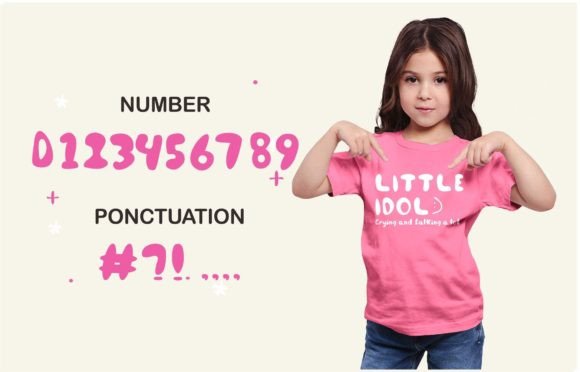
Honey Sweety Font
About Honey Sweety Font
Honey Sweety is a font that radiates cuteness and charm, designed with a whimsical and slightly quirky touch. Its handwritten style adds a playful and friendly vibe to your designs, making them appear delightful and approachable. This font has the ability to infuse a sense of warmth and sweetness into your projects, brightening them up with its unique character.
The charm of Honey Sweety lies in its playful and whimsical nature. The handwritten strokes give it an authentic and personalized feel, as if the text was lovingly crafted by hand. This makes it perfect for a variety of creative applications, such as greeting cards, invitations, children’s books, posters, social media graphics, and more. Its cute and charming appearance adds a touch of innocence and joy to your designs, making them visually appealing and heartwarming.
One of the standout features of Honey Sweety is its ability to evoke positive emotions. Its playful quirkiness makes it a favorite among those looking to create designs that are not only visually appealing but also emotionally engaging. By adding Honey Sweety confidently to your projects, you can create a connection with your audience, eliciting smiles and a sense of delight.
Embracing Honey Sweety in your designs allows you to tap into its adorable and cheerful essence. Its cute and charming handwritten style brings a sense of authenticity, making your designs feel genuine and relatable. Whether you’re designing for children, crafting heartfelt messages, or adding a playful touch to your brand, Honey Sweety is the perfect font choice.
So, add Honey Sweety confidently to your creative projects, and witness how it transforms your designs into delightful and charming works of art. Its cuteness and whimsical charm will not only brighten up your designs but also capture the hearts of your audience, leaving a lasting impression that resonates with warmth and joy.